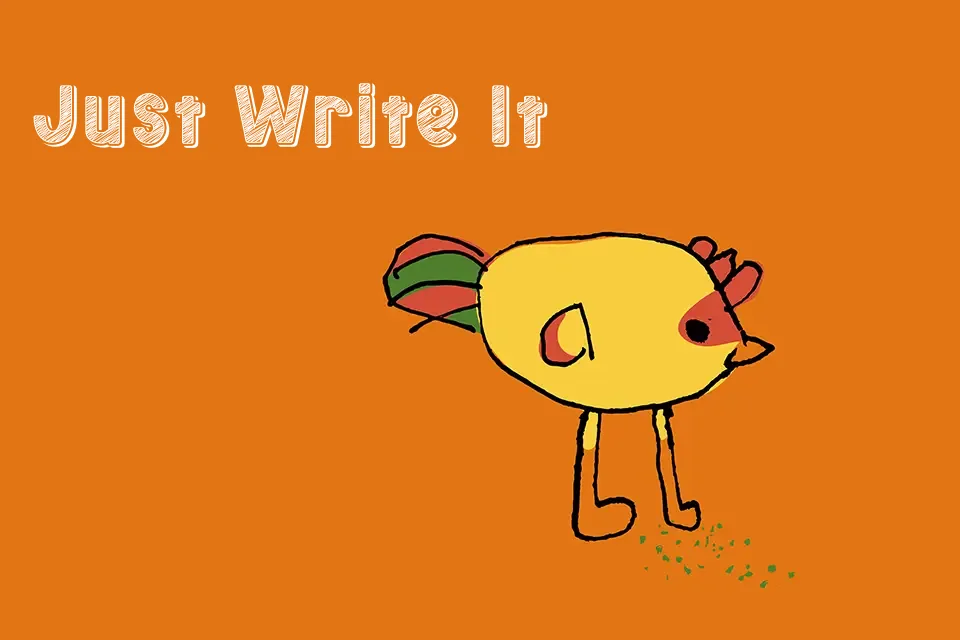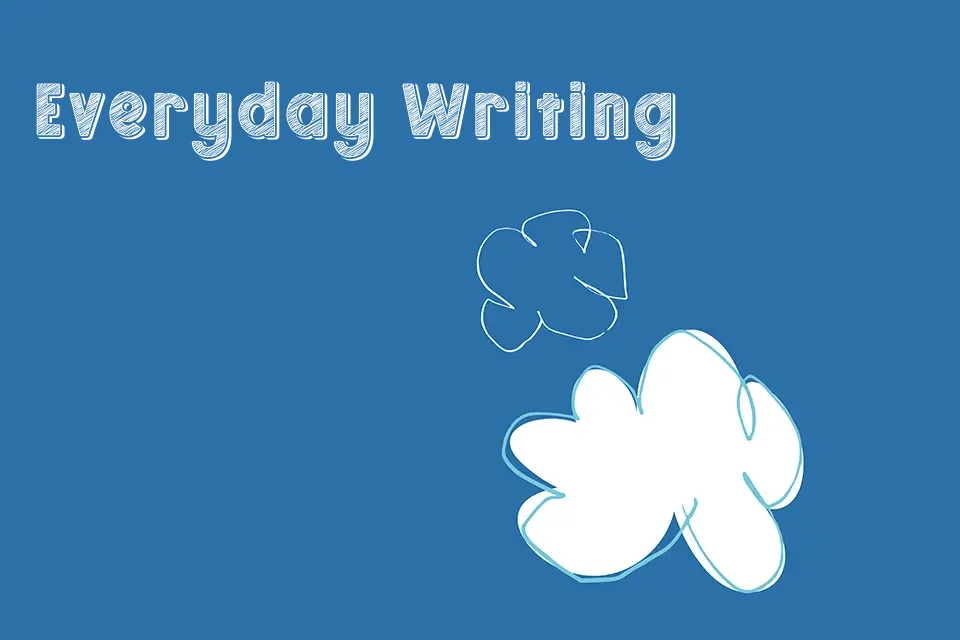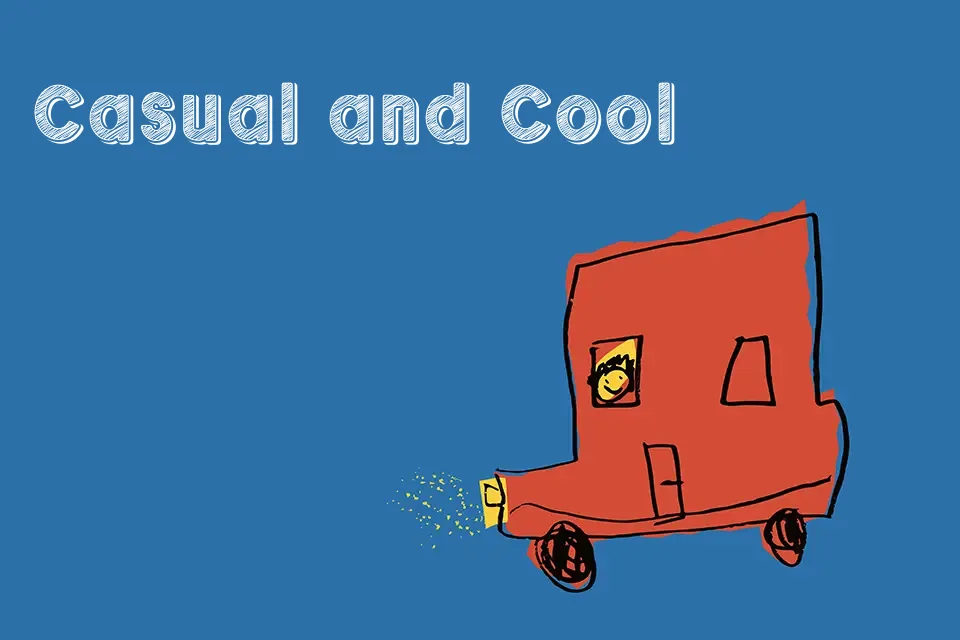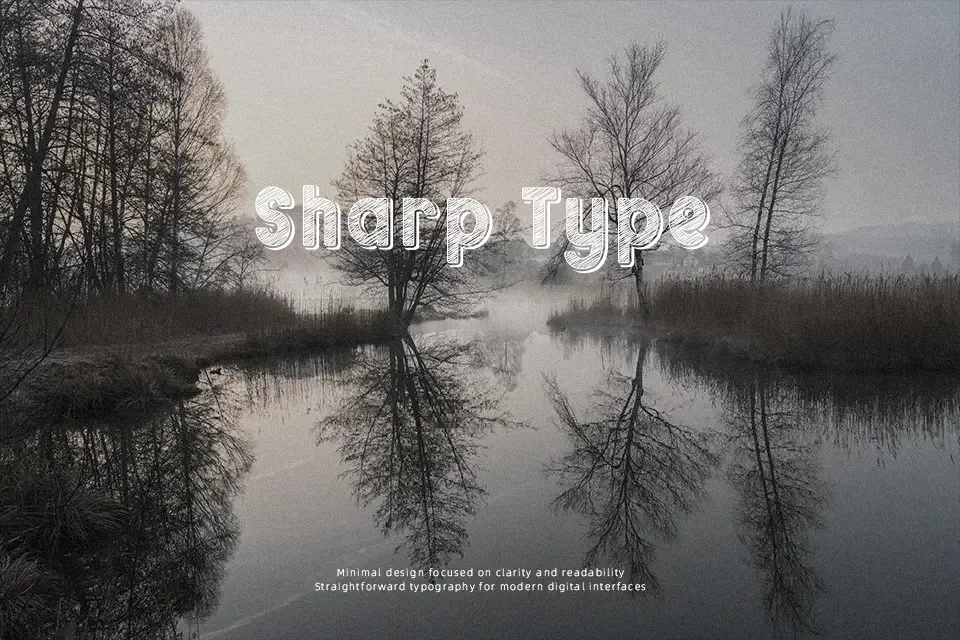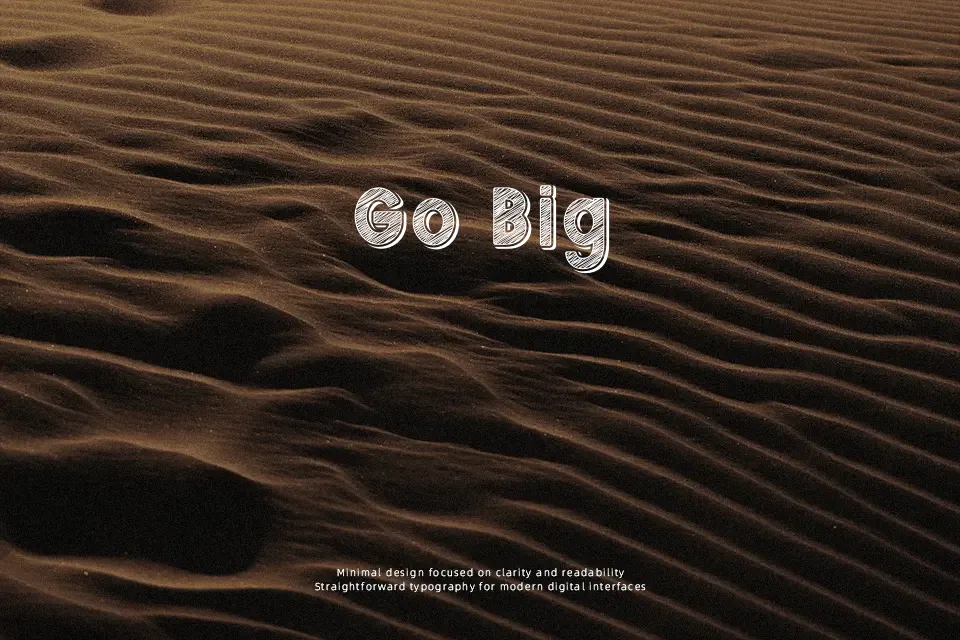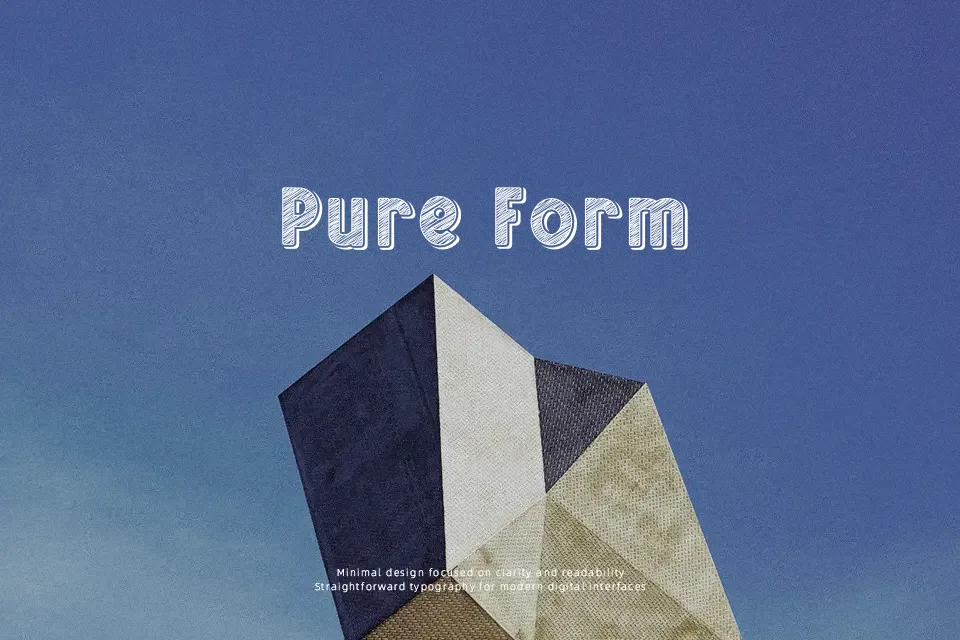
Sketchup Font
Sketchup Font presents a casual decorative design defined by thick hand-drawn outlines and expressive internal scribble textures. The letterforms feature relaxed proportions, gentle curves, and moderately loose spacing that together establish an energetic and approachable visual rhythm across short phrases. Both uppercase and lowercase characters maintain a consistent organic weight, keeping short headlines legible at larger scale. However, the heavy interior hatching and irregular contours cause smaller captions to blur together, making the typeface ineffective for continuous body copy. The textured fills perform best when displayed generously in display settings like children’s apparel, poster titles, and celebratory event signage.
Best For: children book covers, birthday party invitations, playful apparel graphics, snack packaging labels
Not Ideal For: long paragraph reading, technical manuals, corporate financial reports, small mobile ui labels
Perfect for headline, invitation, and kids, with a creative and decorative style.